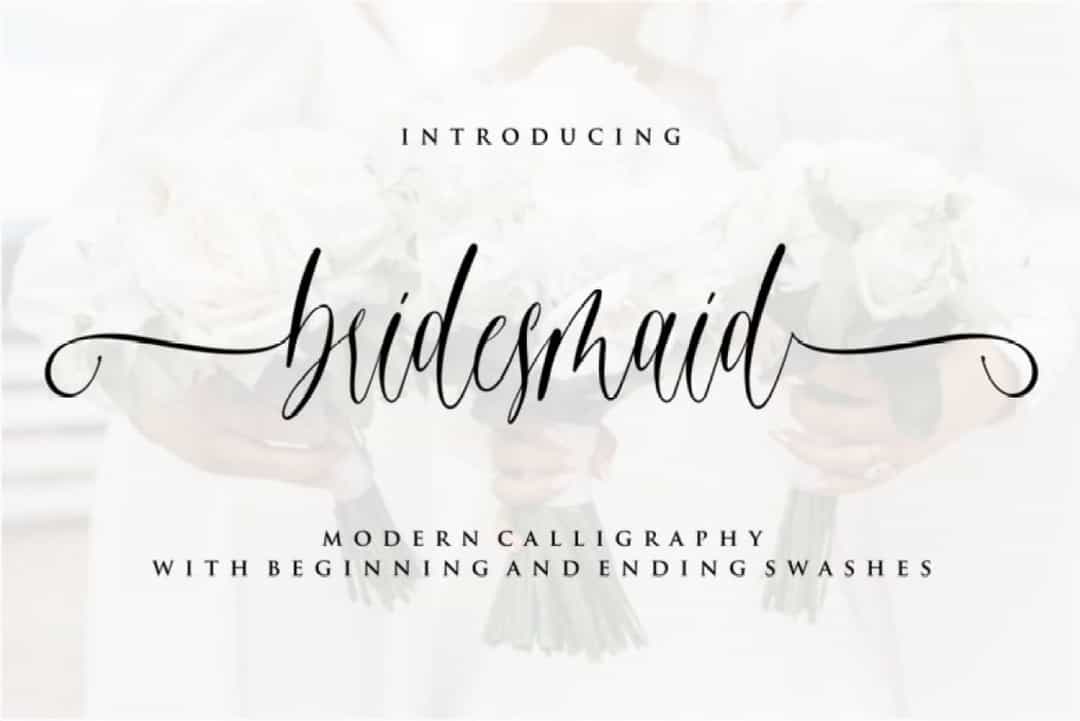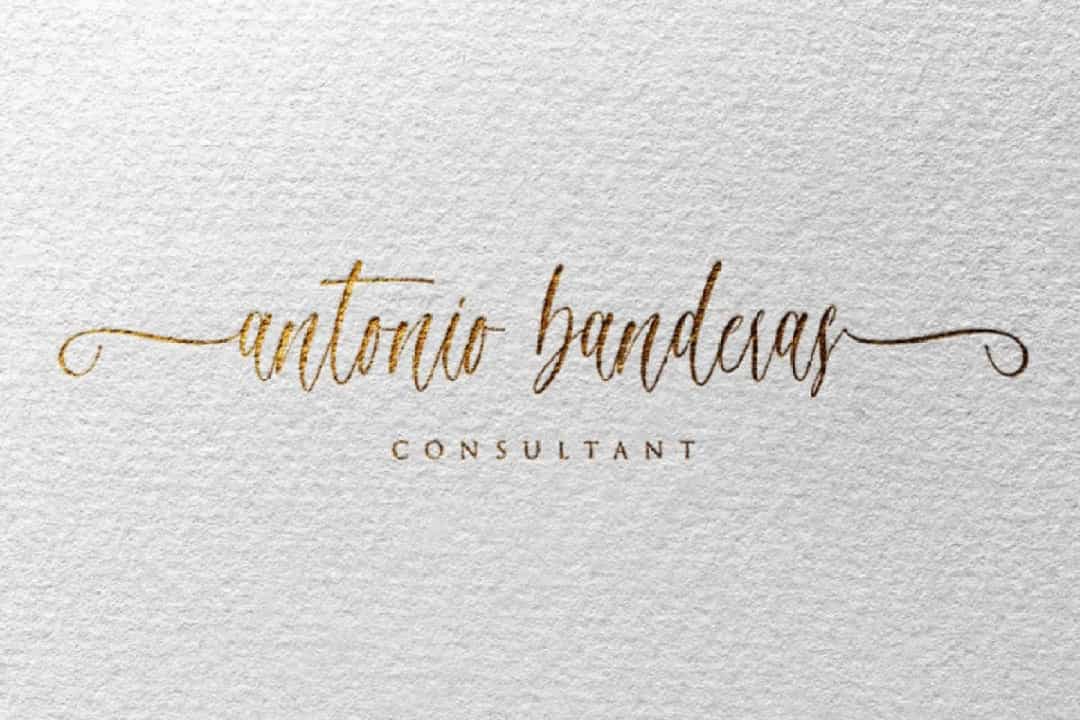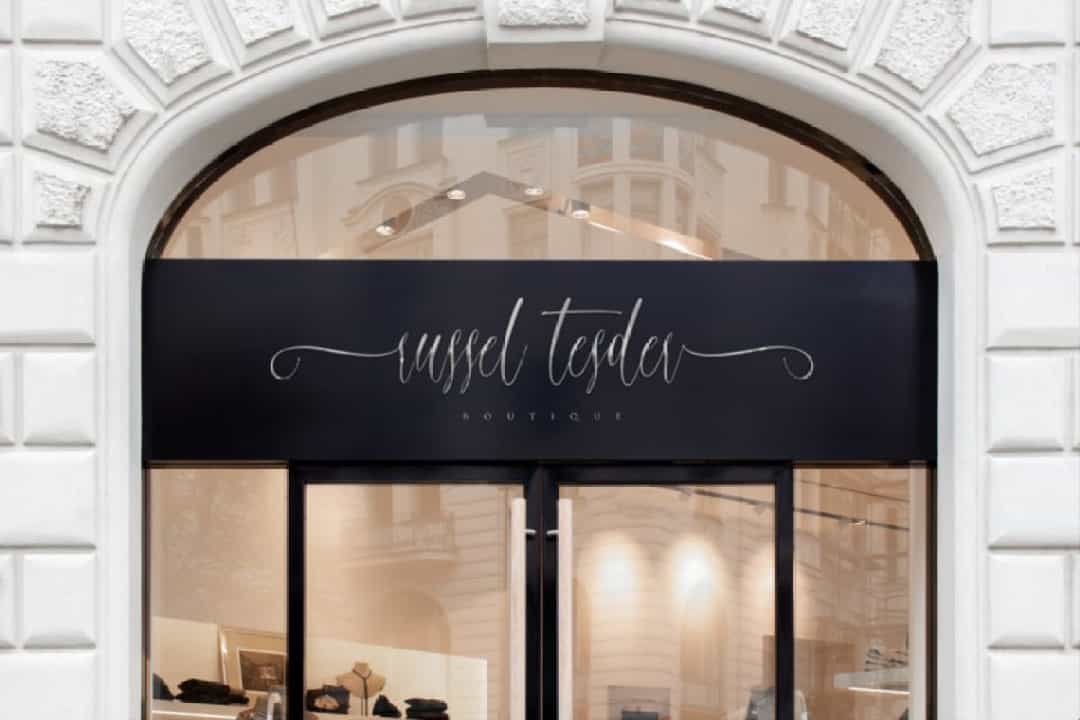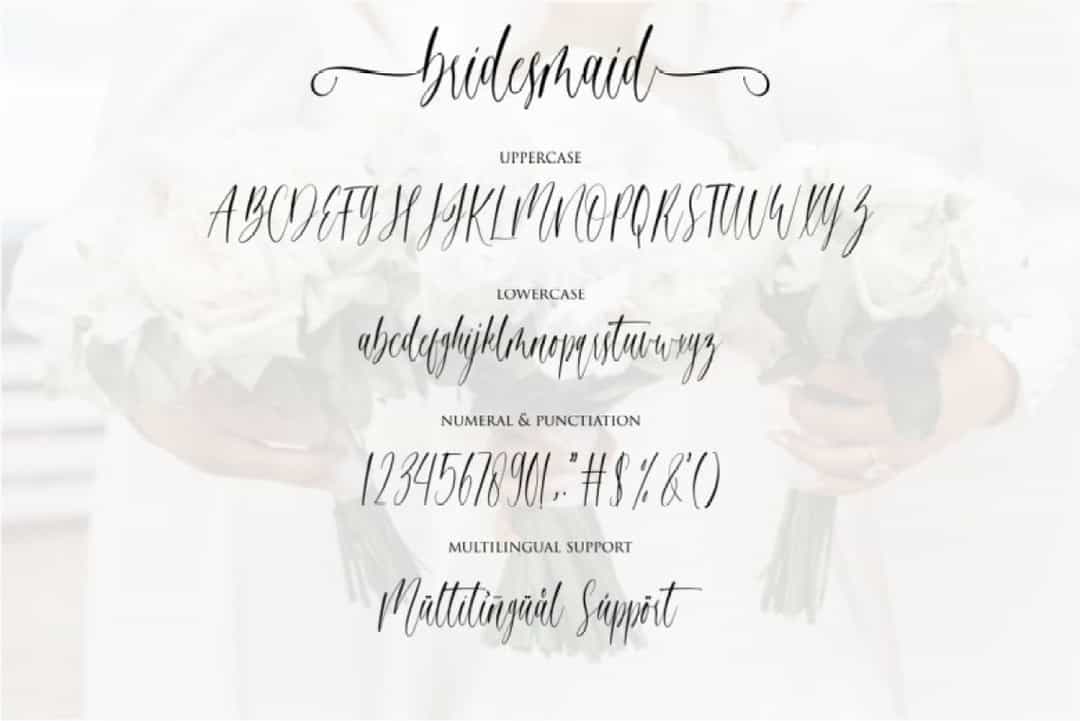
Bridesmaid is an elegant and modern Calligraphy Script font, it has many Open Type Features such as lower & upper case letters, punctuation, numerals, ligatures and stylistic alternatives that have their starts and ends, and many more characters.